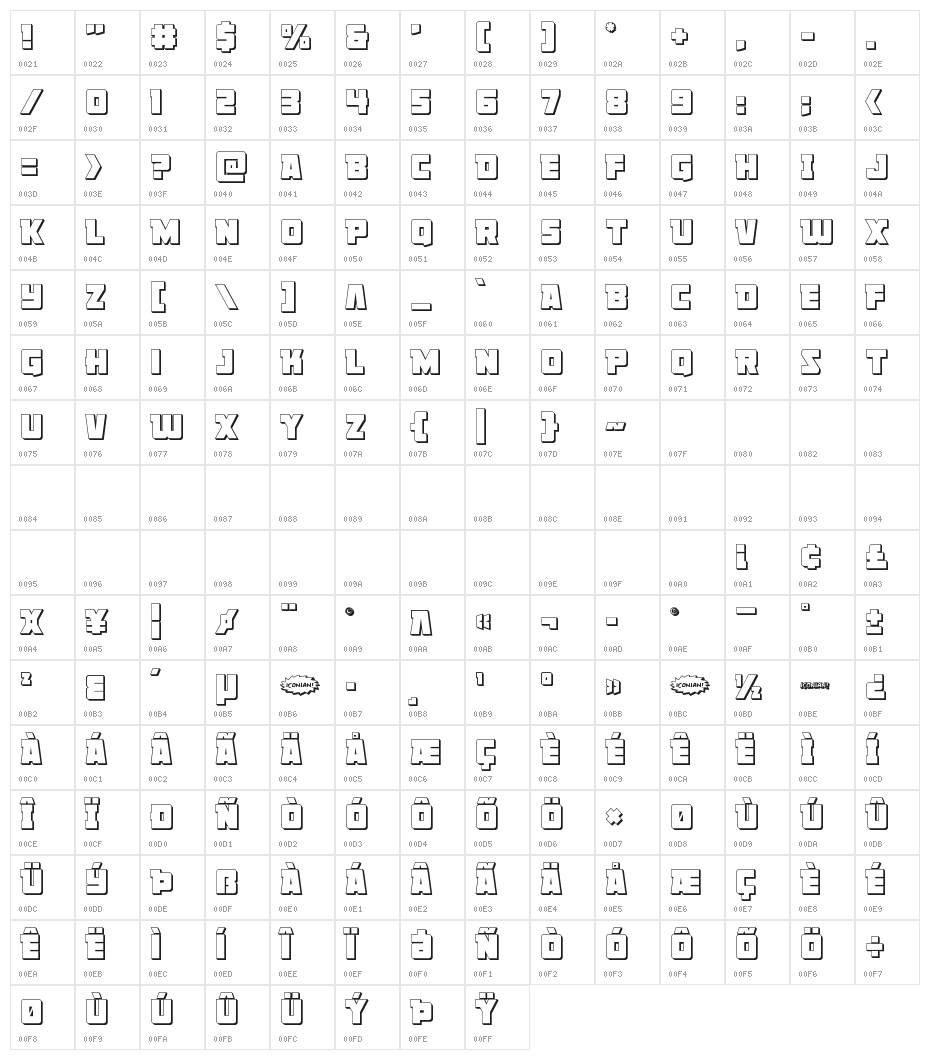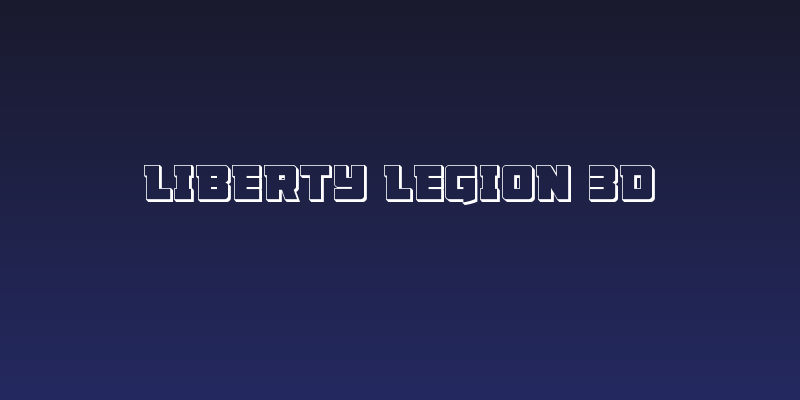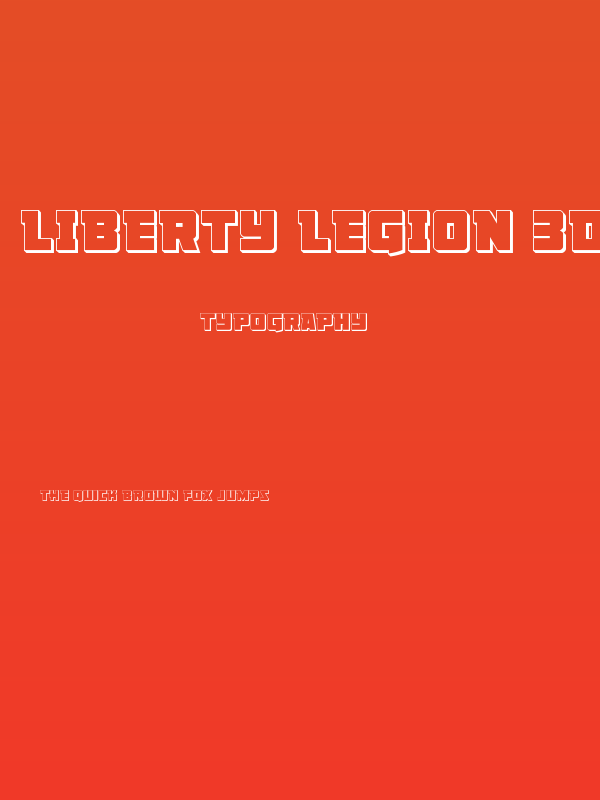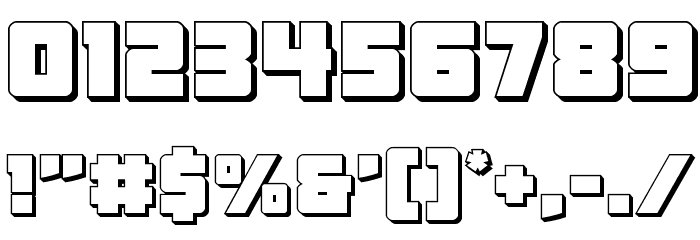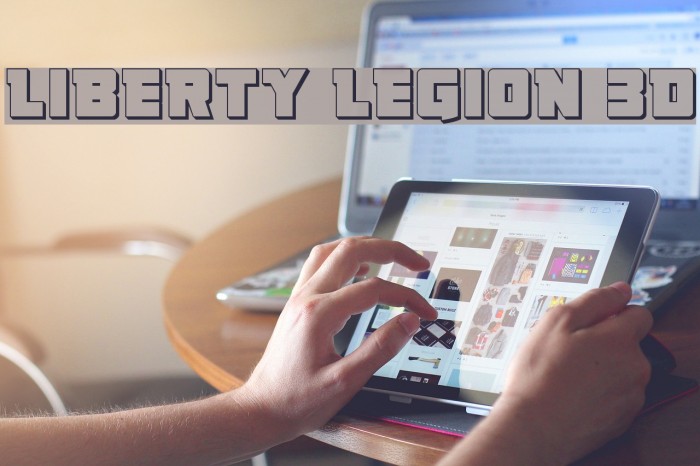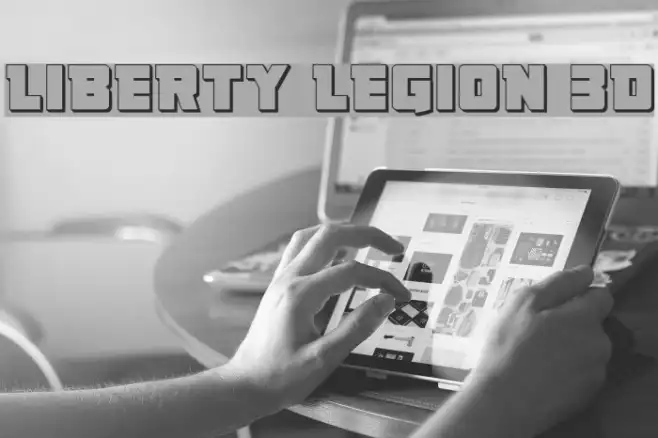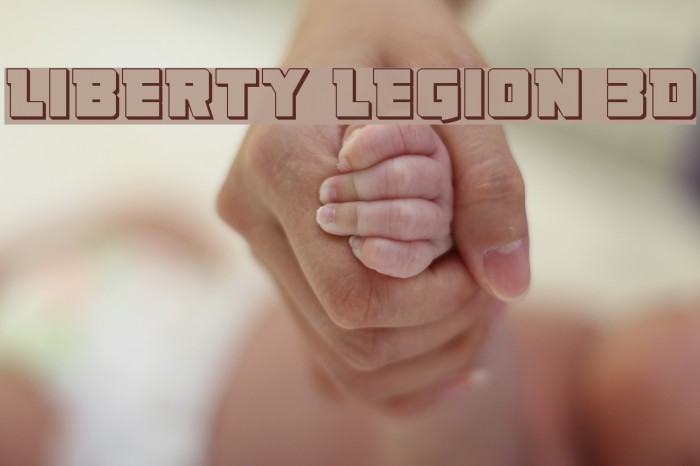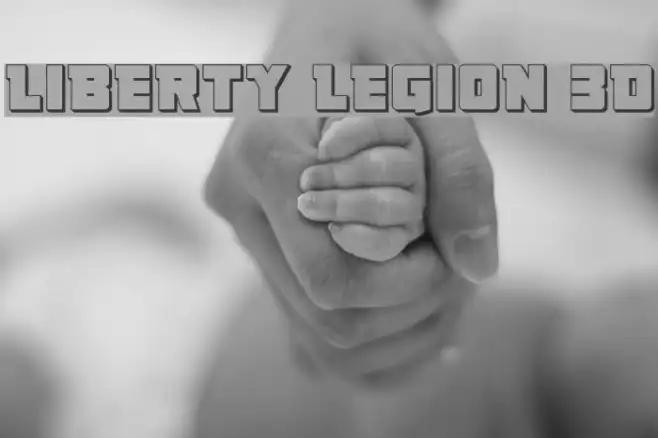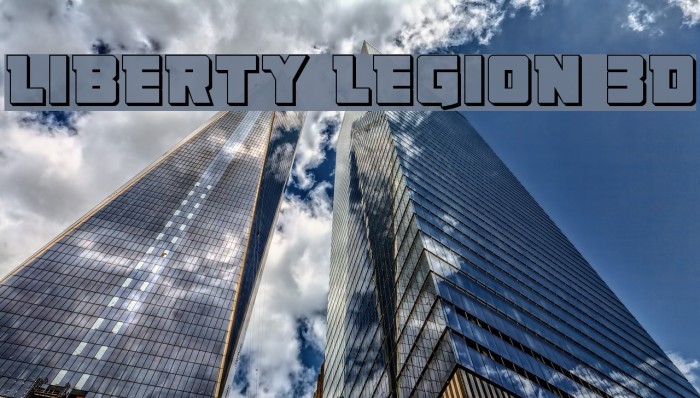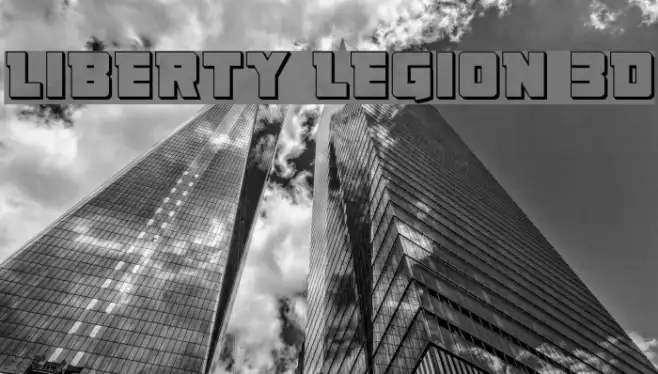
Liberty Legion 3D Font
Liberty Legion 3D Description
This font features a bold, three-dimensional style with a strong, impactful presence. Each character is outlined, giving it a distinct shadow effect that enhances its 3D appearance. The letters are uniformly structured with sharp angles and straight lines, creating a geometric and modern look. The uppercase and lowercase letters maintain a consistent style, while the numbers and special characters complement the overall design. This font is ideal for projects that require a standout, eye-catching typeface with a sense of depth and dimension.
| Proposed Projects | Ideal for posters, headlines, logos, and any design needing a bold, dimensional impact. |